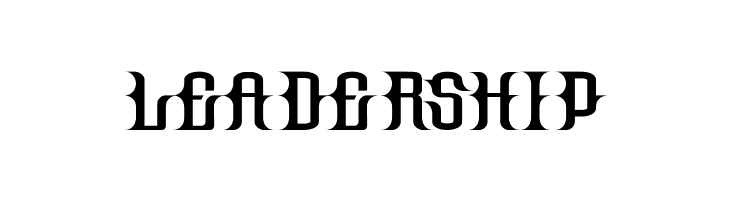
A decorative font with cartoon faces representing each character.
A decorative font with a textured, intertwined ribbon-like design.
A bold, textured font with a playful, hairy appearance.
A bold, flowing script font with elegant curves and a modern calligraphic style.
A bold, geometric font with strong, angular lines and a modern aesthetic.
A vintage, textured serif font with a distressed, typewriter-like appearance.
A bold, modern font with a unique horizontal line pattern.
A dynamic italic font with a futuristic, motion-inspired design.
A bold, geometric font with an art deco influence.
Casual handwritten script font.
A bold, geometric font with Art Deco influences, ideal for decorative use.
A playful and elegant handwritten font with flowing, slightly irregular strokes.
A modern, geometric font with half-circle and line elements.
A bold, modern font with partially filled characters and a futuristic aesthetic.
A bold, modern font with a vintage touch, perfect for impactful designs.
A bold, futuristic font with a three-dimensional, italic design.
A bold, three-dimensional font with a futuristic and industrial design.
A display font made of superhero and comic book logos as glyphs.
An artistic and dynamic font with flowing, interconnected strokes.
Playful dingbat font with hand-drawn angel illustrations.
A whimsical collection of cartoon-like illustrations with angelic themes.
A bold, decorative font with gothic influences and high contrast strokes.
A bold, geometric font with sharp angles and futuristic design.
A bold, textured font with a gritty, distressed style ideal for spooky themes.
A spooky, irregular font with a dripping, eerie aesthetic.
A whimsical, Halloween-themed font featuring playful hand-drawn illustrations.
A bold, brush-style font with dynamic, hand-painted strokes.
A spooky, dripping font perfect for Halloween themes.